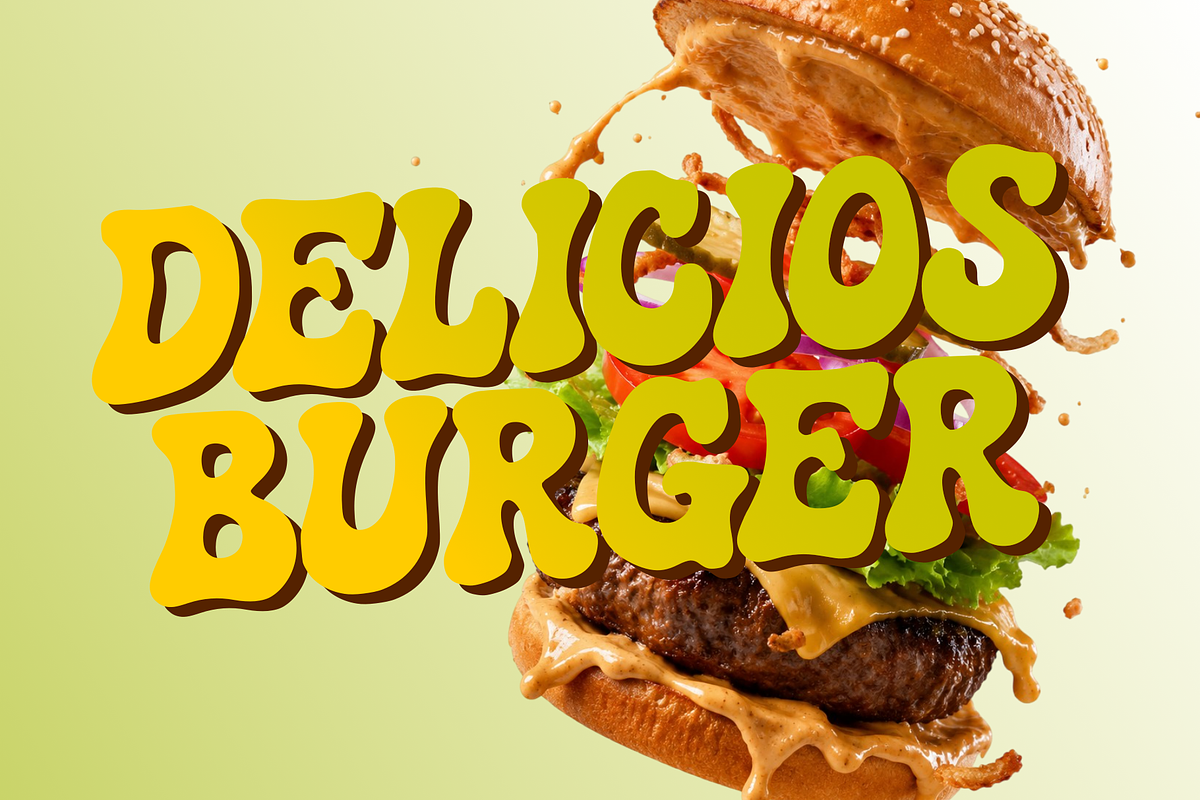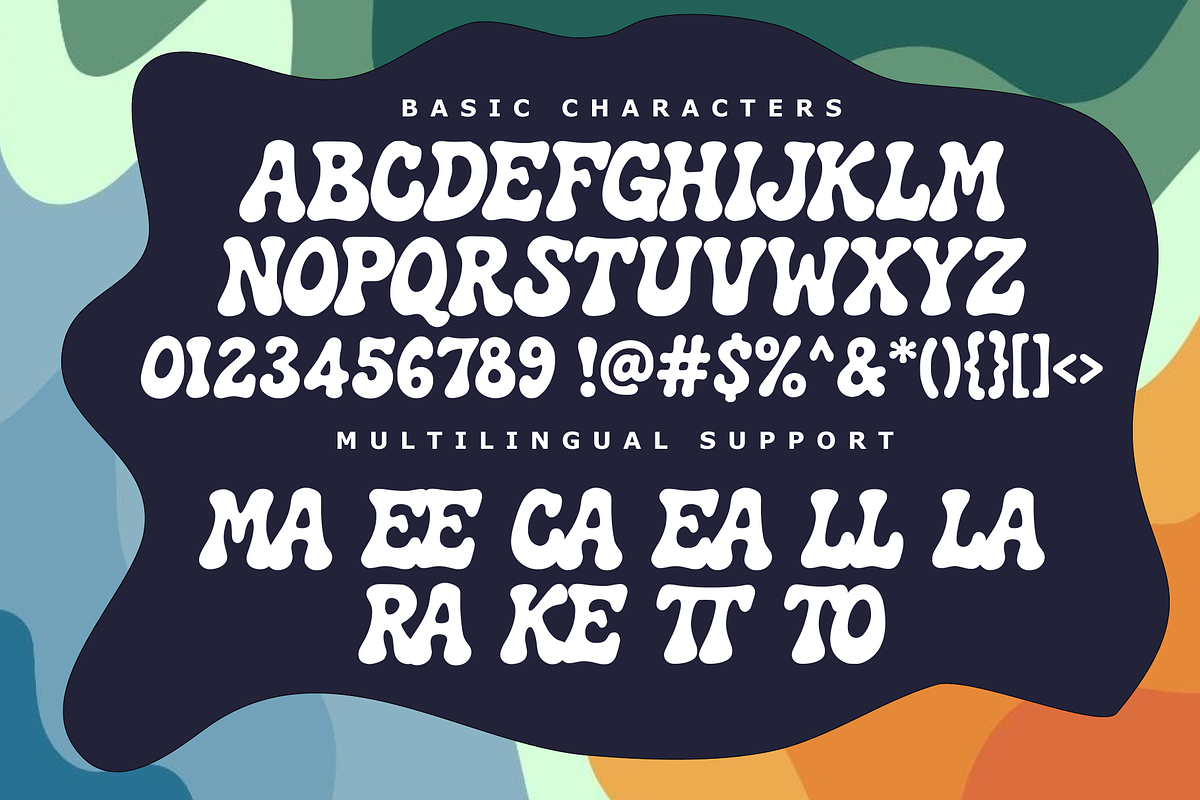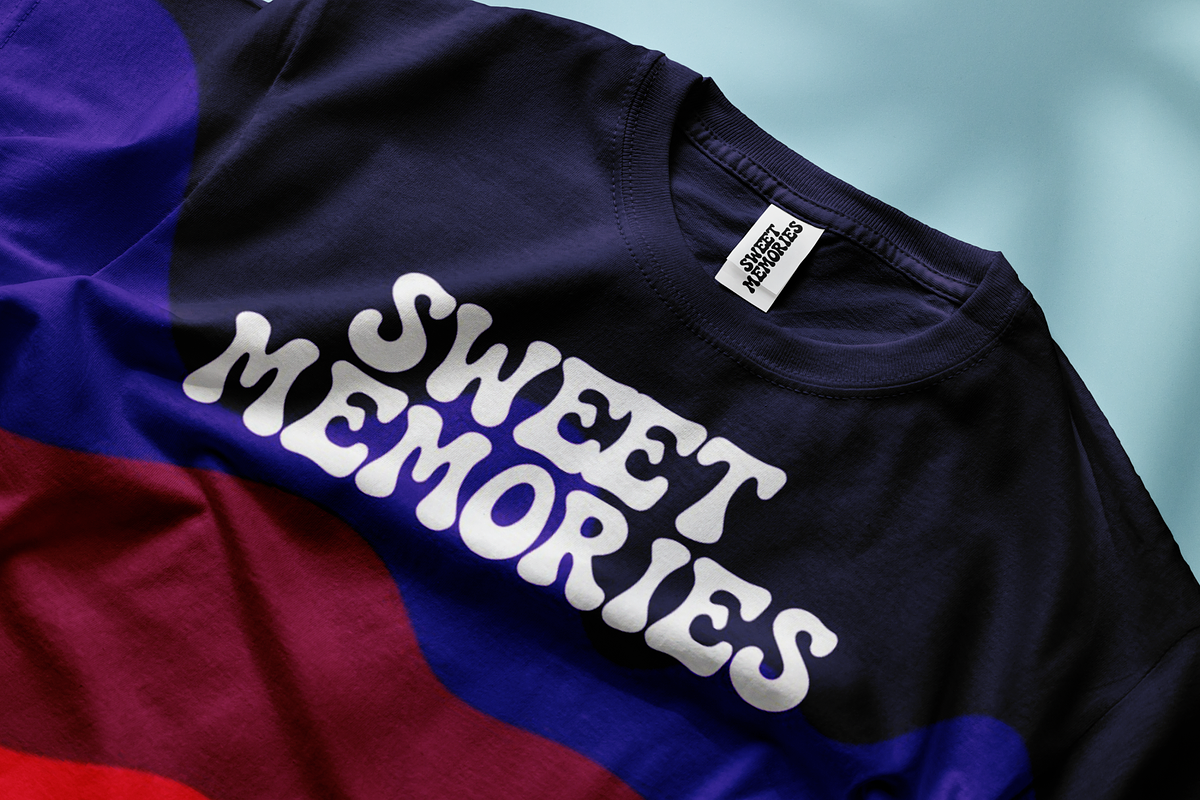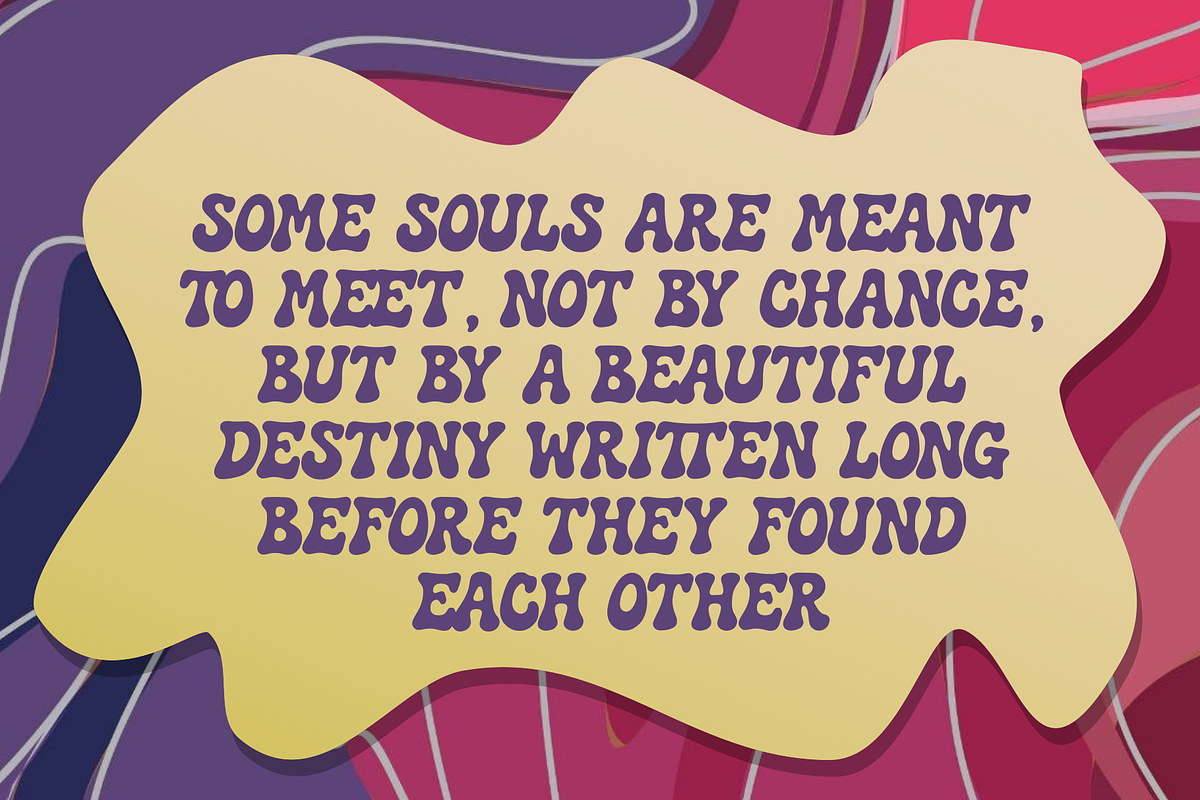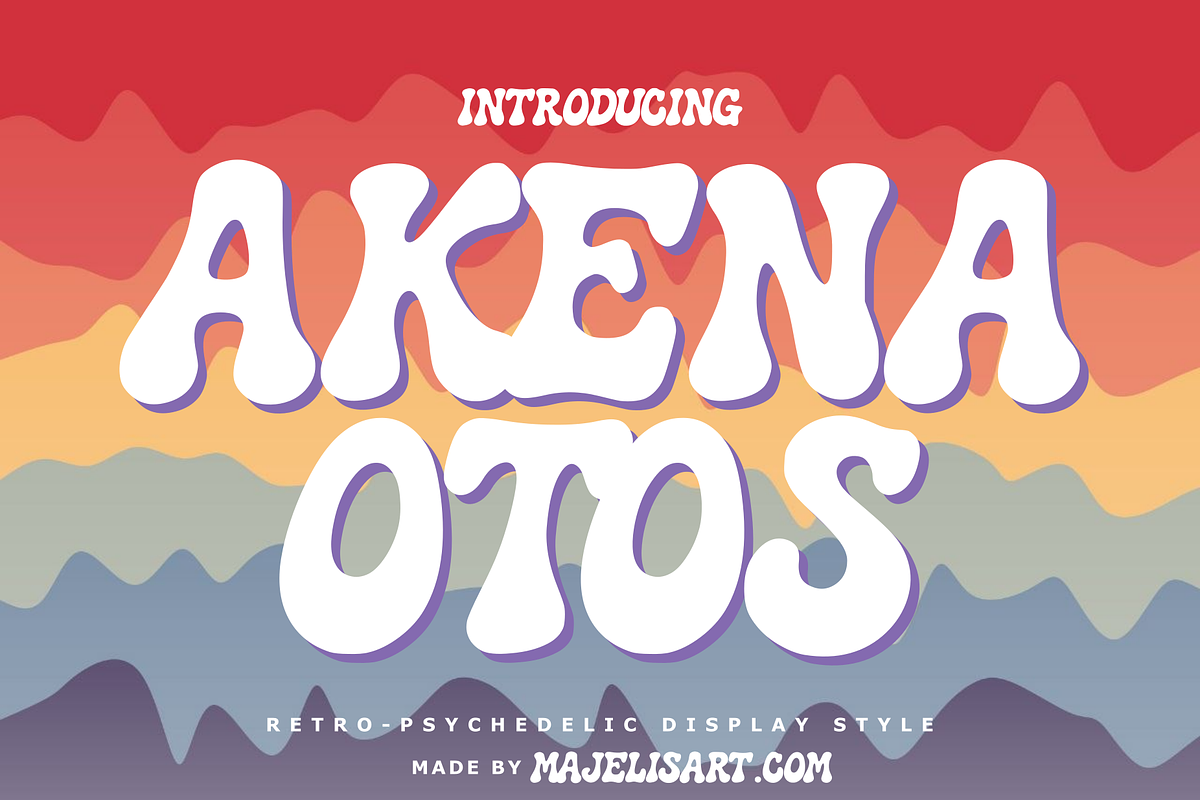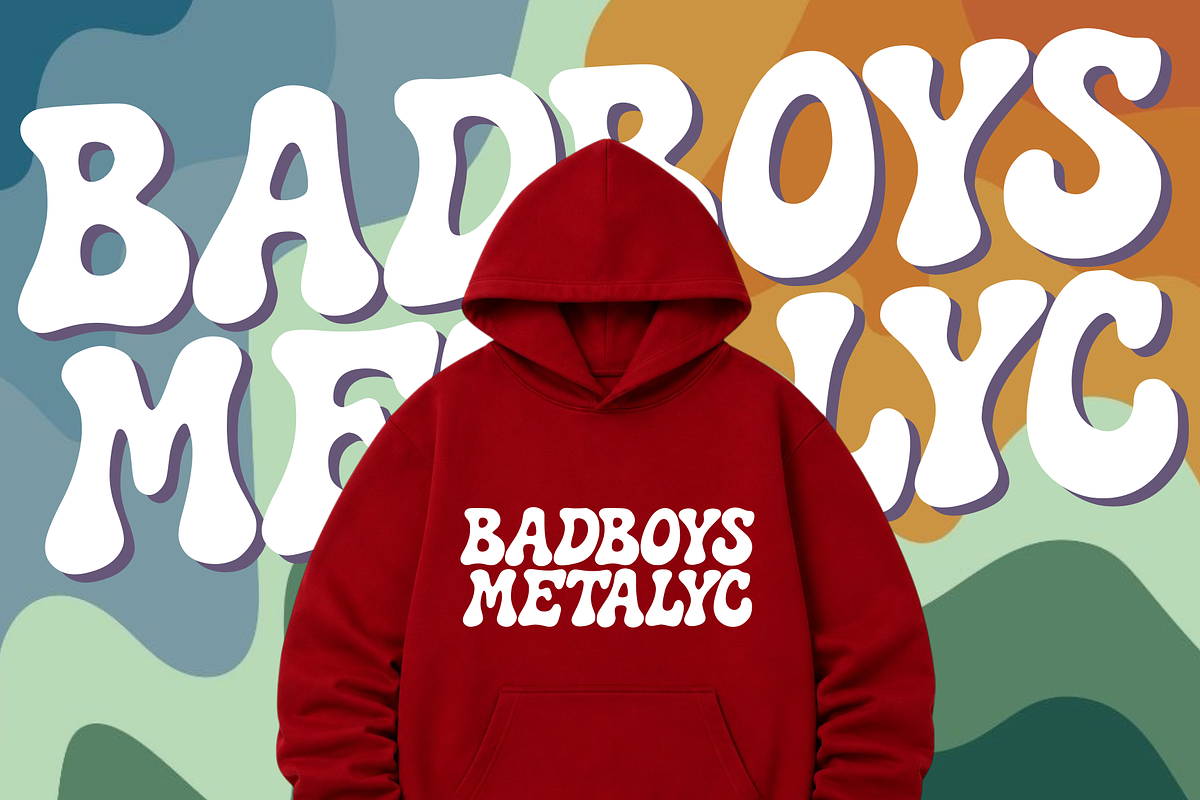
Akena Otos - Display font
Akena Otos — Retro Psychedelic Display Font Introducing Akena Otos, a bold and playful display typeface inspired by the colorful world of retro psychedelic art and vintage lettering. With its chunky shapes, soft curves, wavy details, and distinctive organic forms, Akena Otos creates a groovy and energetic visual style. Its unusual letterforms give every word a fun, nostalgic, and eye-catching personality. Akena Otos is designed especially for large display text, where its unique shapes can truly stand out.
Perfect For Retro & vintage designs Psychedelic artwork Posters & flyers Album covers Music & festival graphics T-shirts & apparel Logos & branding Stickers & merchandise Packaging design Social media graphics Headlines & titles Children's & playful designs Creative advertising Bohemian & funky designs 60s / 70s inspired artwork
Multilingual Support Akena Otos includes multilingual support, making it suitable for creative projects targeting an international audience and languages using the supported Latin-based characters.